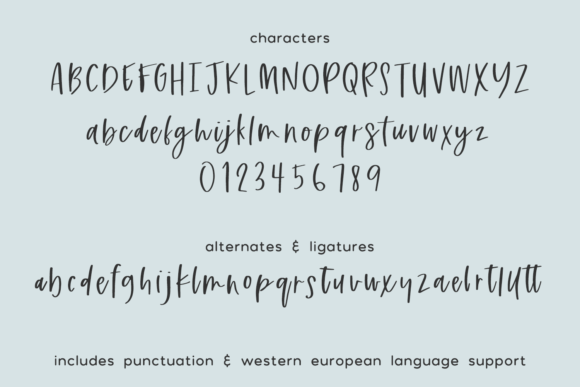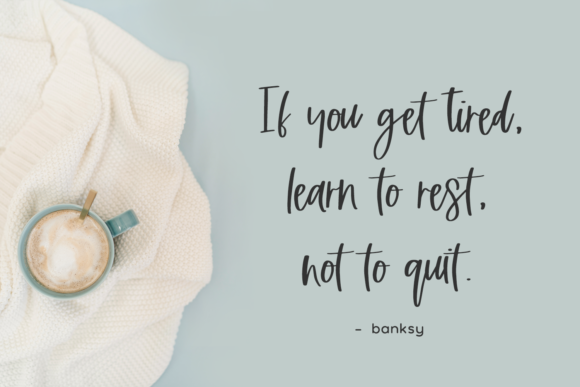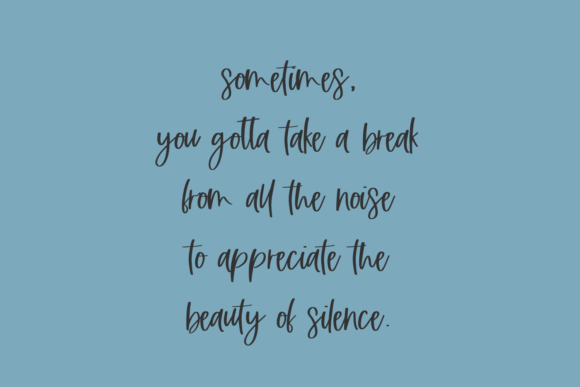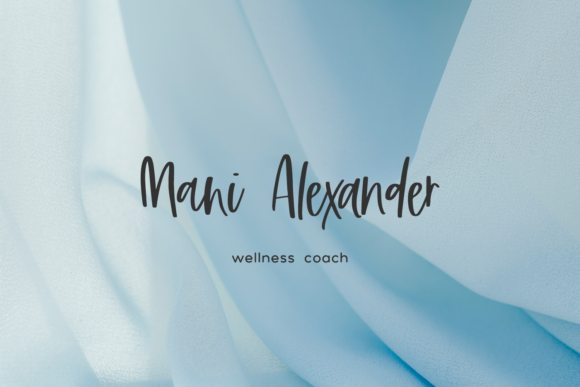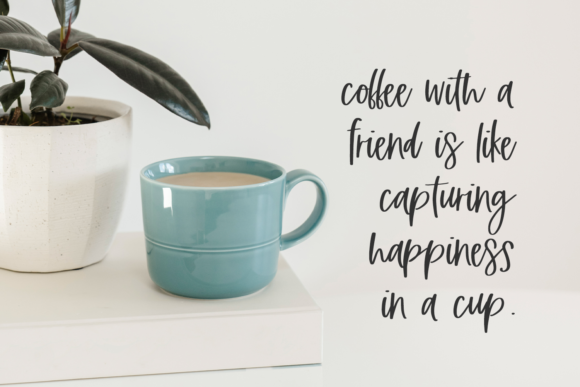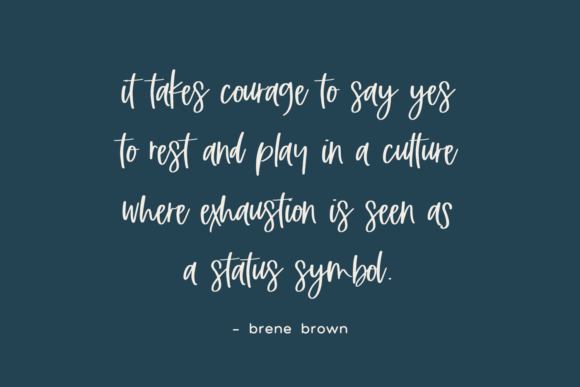
Sequester Script Font
About Sequester Script Font
Sequester Script is a sweet and friendly handwritten font. Its natural and unique style makes it incredibly fitting to a large pool of designs. This font is PUA encoded which means you can access all of the glyphs and swashes with ease!